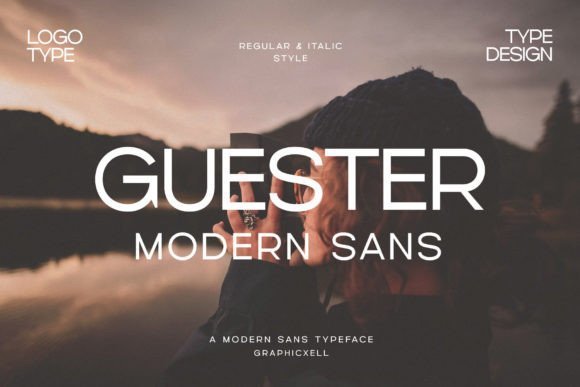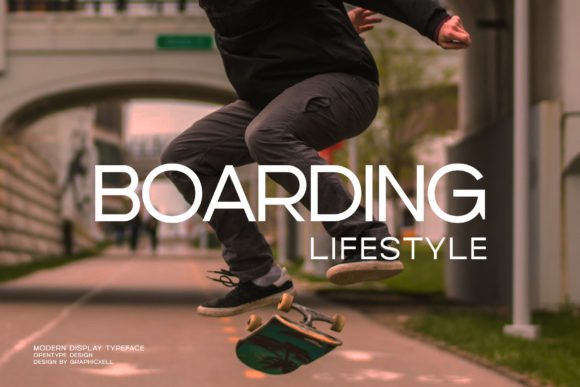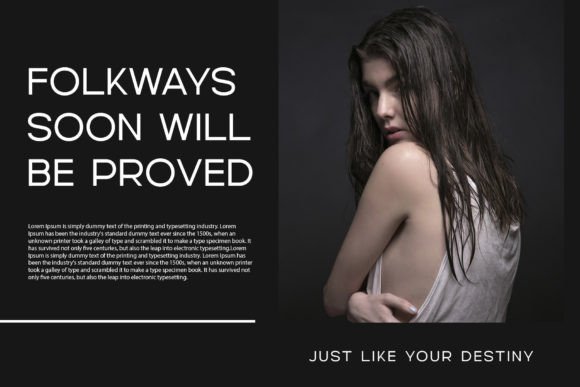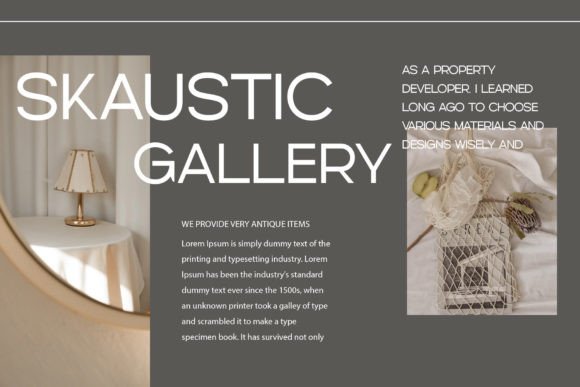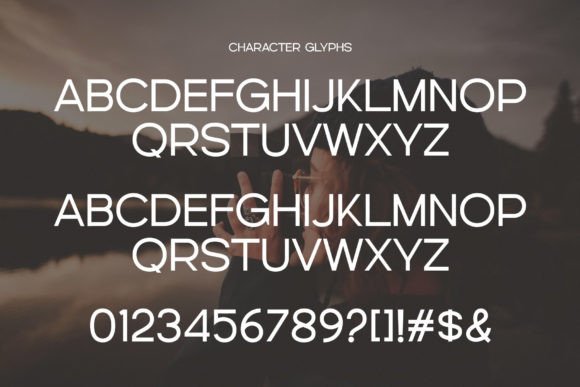
The Perfect Font for Any Project: Guester Font
Have you ever stared at a blank page, trying to decide on the perfect font for your next design project? We’ve all been there. You want something that’s sleek, modern, and inviting, but also versatile enough to work for both body and headline text. That’s where Guester Font comes in – a sans-serif font that’s perfect for any project that requires a friendly and approachable feel.
With its rounded edges and balanced, even weight, Guester Font is a valuable tool for designers who want to create engaging and professional-looking content. Whether you’re working on a website, brochure, or social media campaign, this font is sure to deliver. And the best part? It’s easy to use and pairs well with a variety of other design elements, making it a must-have in any designer’s toolkit.
Key Features of Guester Font
- Font Family: Guester is a sans-serif font family designed by Tobias Frere-Jones and Erik Spiekermann.
- Unique Characteristics: Guester Font features a distinctive sans-serif design with a strong x-height and a subtle rounded edge on the corners of the letters, giving it a friendly and approachable feel.
Designer Review: Guester Font
Overall, Guester is a decent font that gets the job done, but it doesn’t blow me away. ✨ One thing I like about it is the quirky, playful vibe it gives off, making it perfect for creative projects or social media graphics. The font’s variations in weight and style also make it versatile and easy to work with. ✨ The characters are well-spaced and legible, even at smaller font sizes.
However, there are some limitations to consider. ⚠️ Firstly, the font may not be the best choice for formal or professional projects, as it can come across as a bit too casual. ⚠️ Additionally, the font’s limited language support may be a concern for designers working on multilingual projects. ⚠️ Finally, the font’s open type features are somewhat limited, which may impact its ability to be customized and styled.
In conclusion, Guester is a solid font that can add some personality to your designs. While it may not be the best choice for every project, it’s definitely worth considering for creative and casual projects. Just be aware of its limitations and use it wisely.
- Pros: Quirky, playful vibe, versatile and easy to work with, well-spaced and legible characters.
- Cons: Limited language support, limited open type features, may not be suitable for formal or professional projects.
Guester Font is ideal for creative projects, such as:
- Food and restaurant branding
- Travel and adventure marketing materials
For best results, use Guester Font in combination with bold, bright colors and playful graphics.
What font sizes and weights are available in the Guester Font family?
The Guester Font family includes 8 font weights, ranging from Light to Black, as well as 3 font sizes: Regular, Bold, and Italic. This extensive range of weights and sizes allows designers to achieve a high level of flexibility and customization in their designs. The font sizes can be easily adjusted using font scaling or by using a font manager tool.